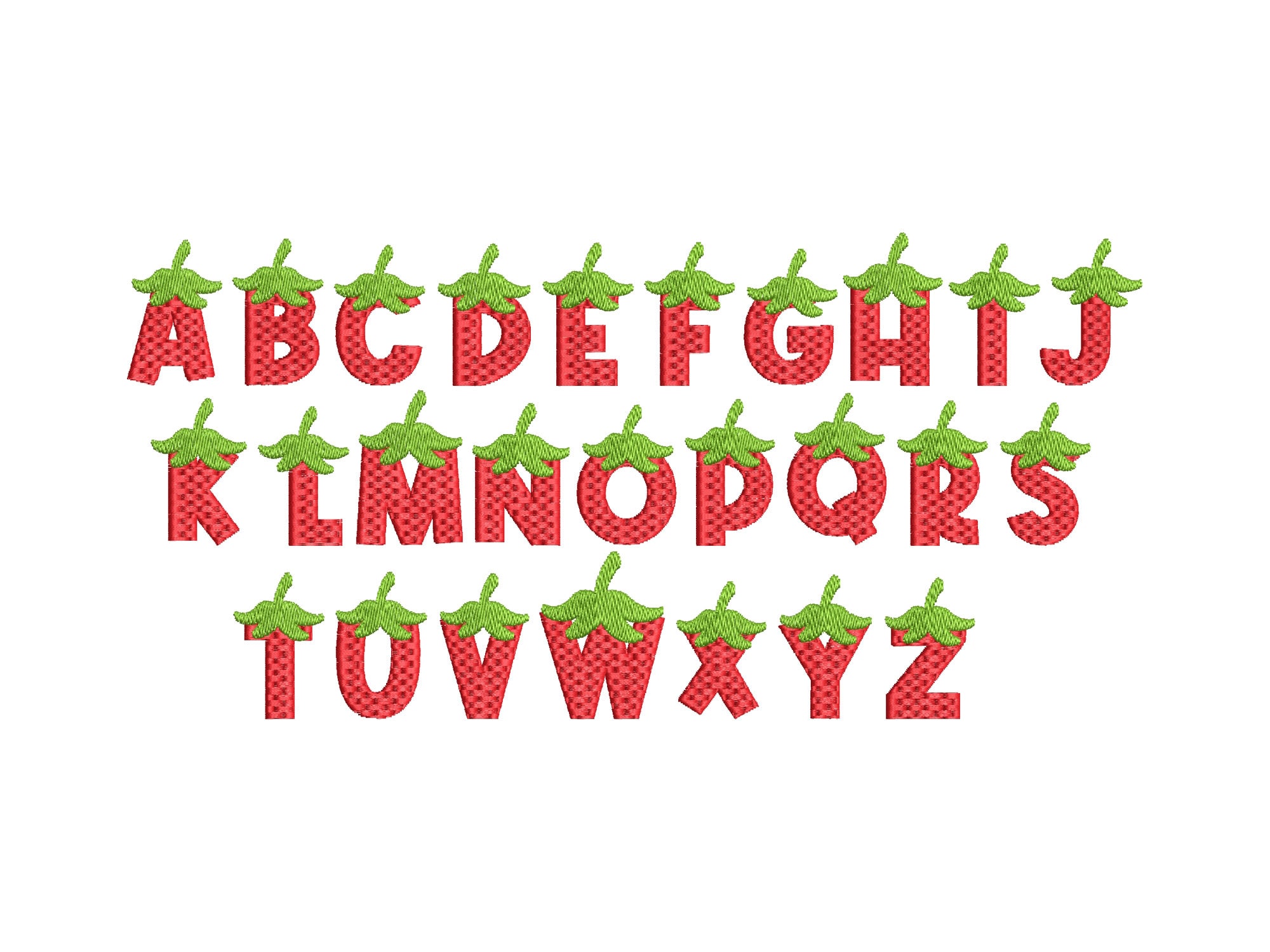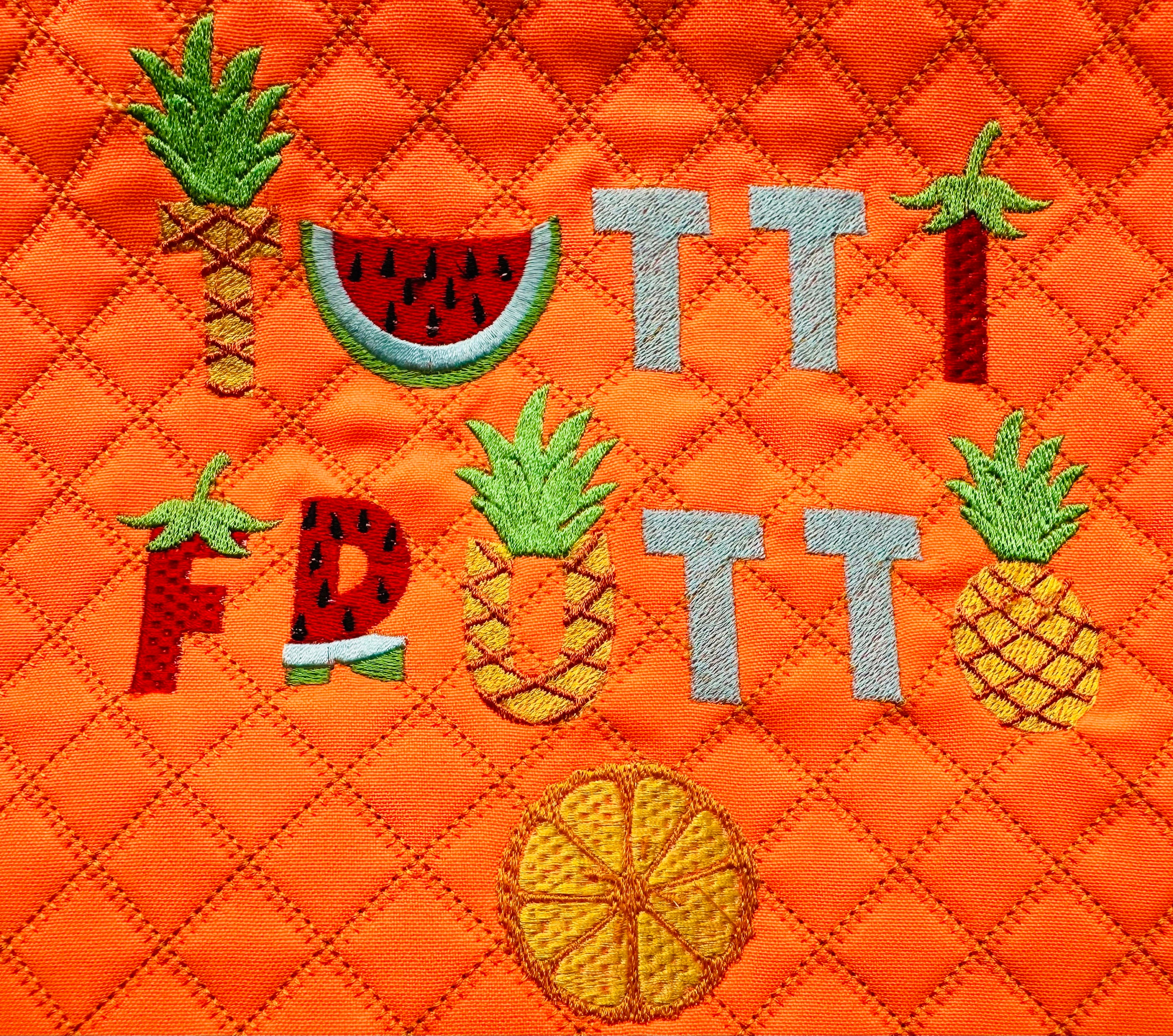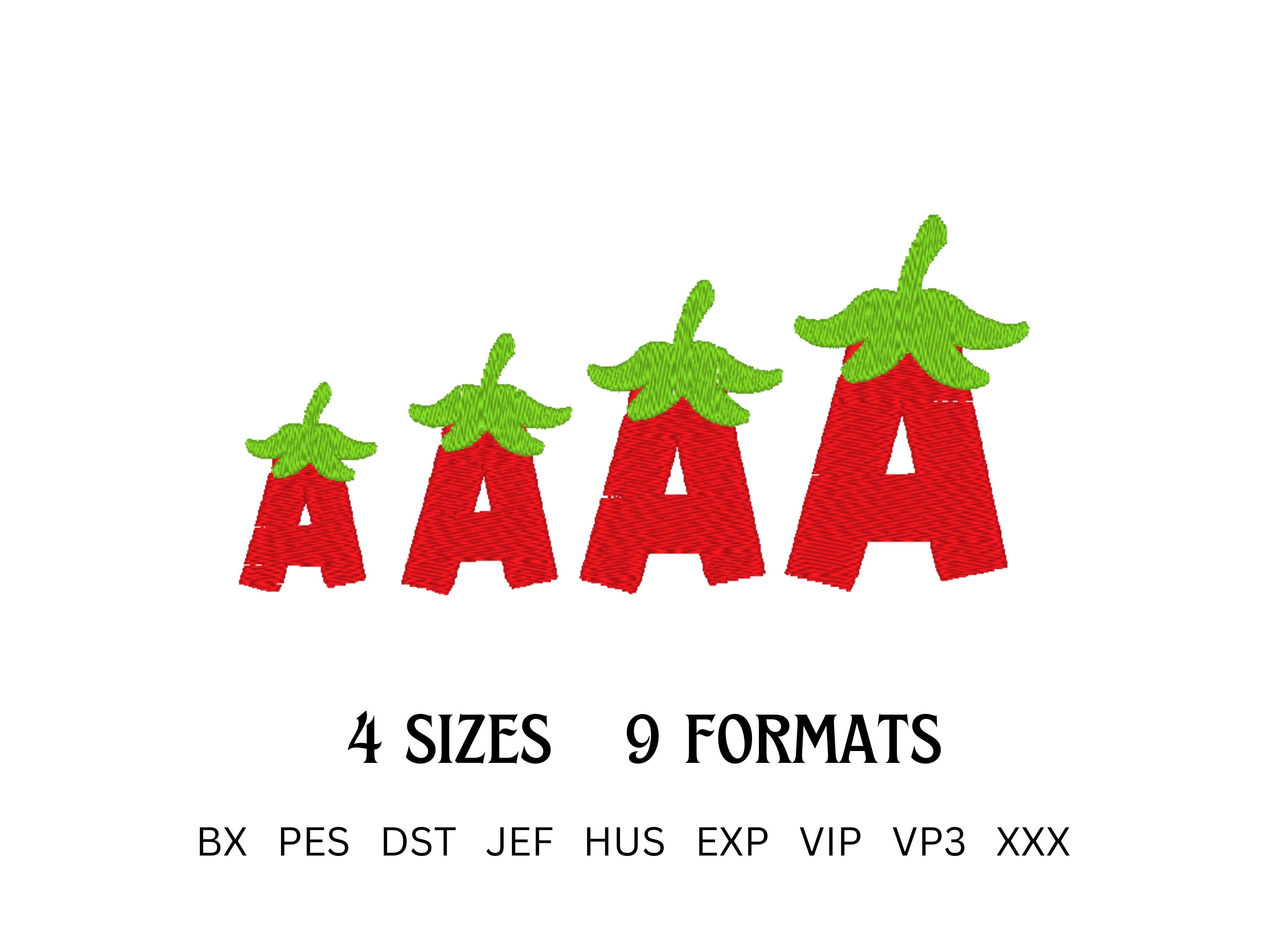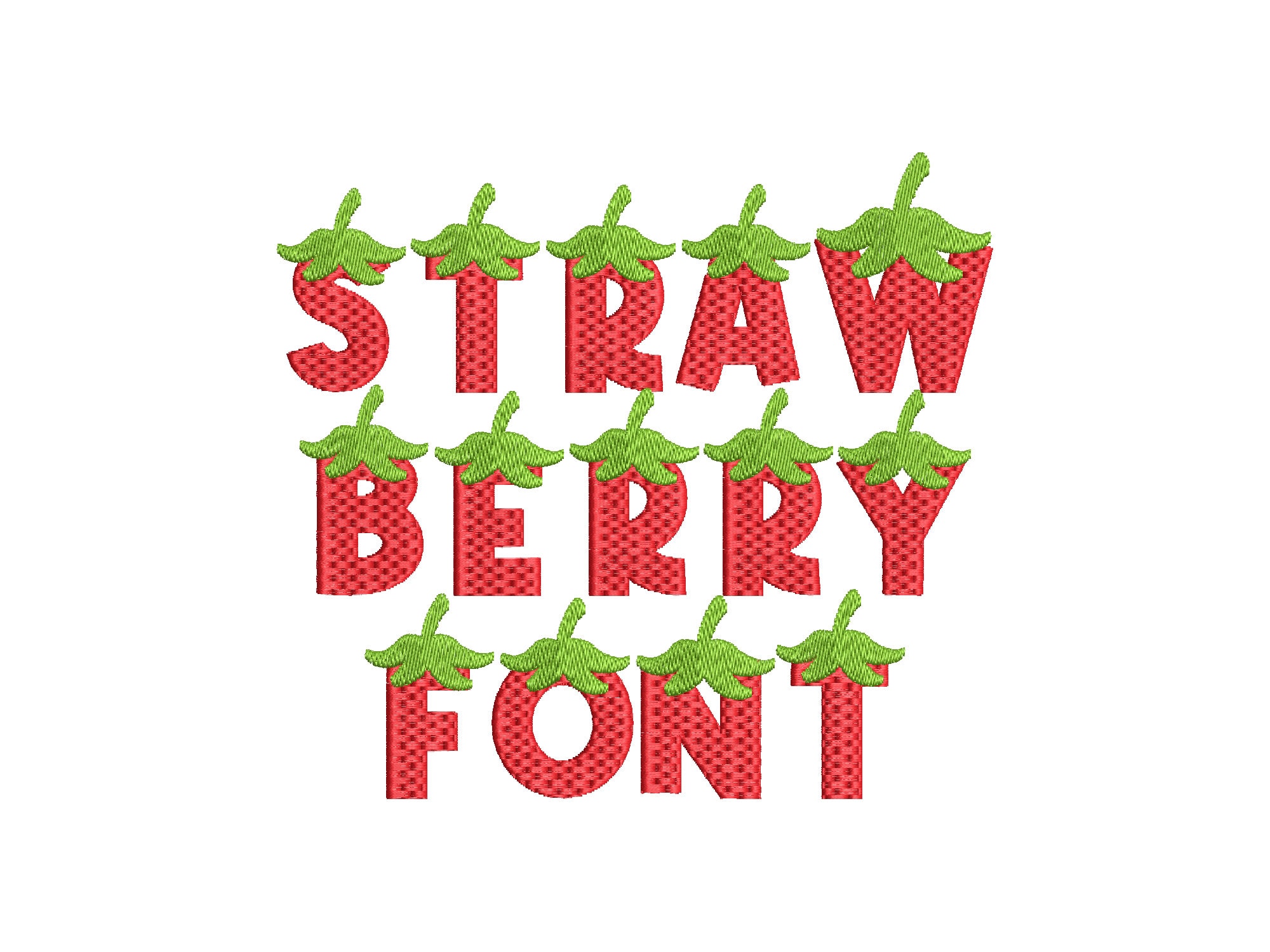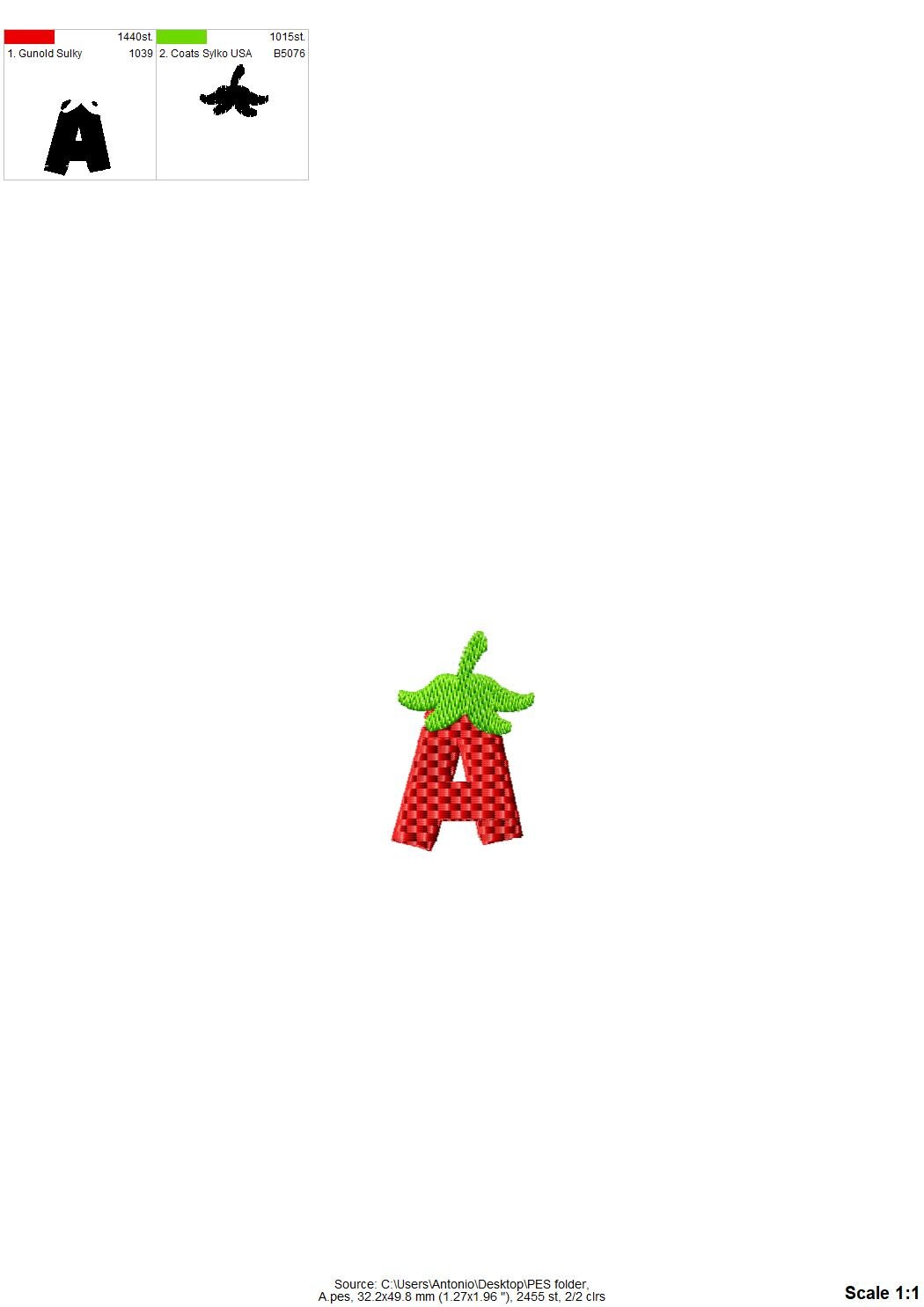
The fill stitch and waffle stitch font.
Whole alphabet A-Z capital letters.
Smallest - 1.2 inches
Small - 1.5 inches
Medium - 1.8 inches
Biggest- 2.1 inches
*Please note: the size is for the height of the letters. The Strawberry letters are a little higher because they have leaves on the top.